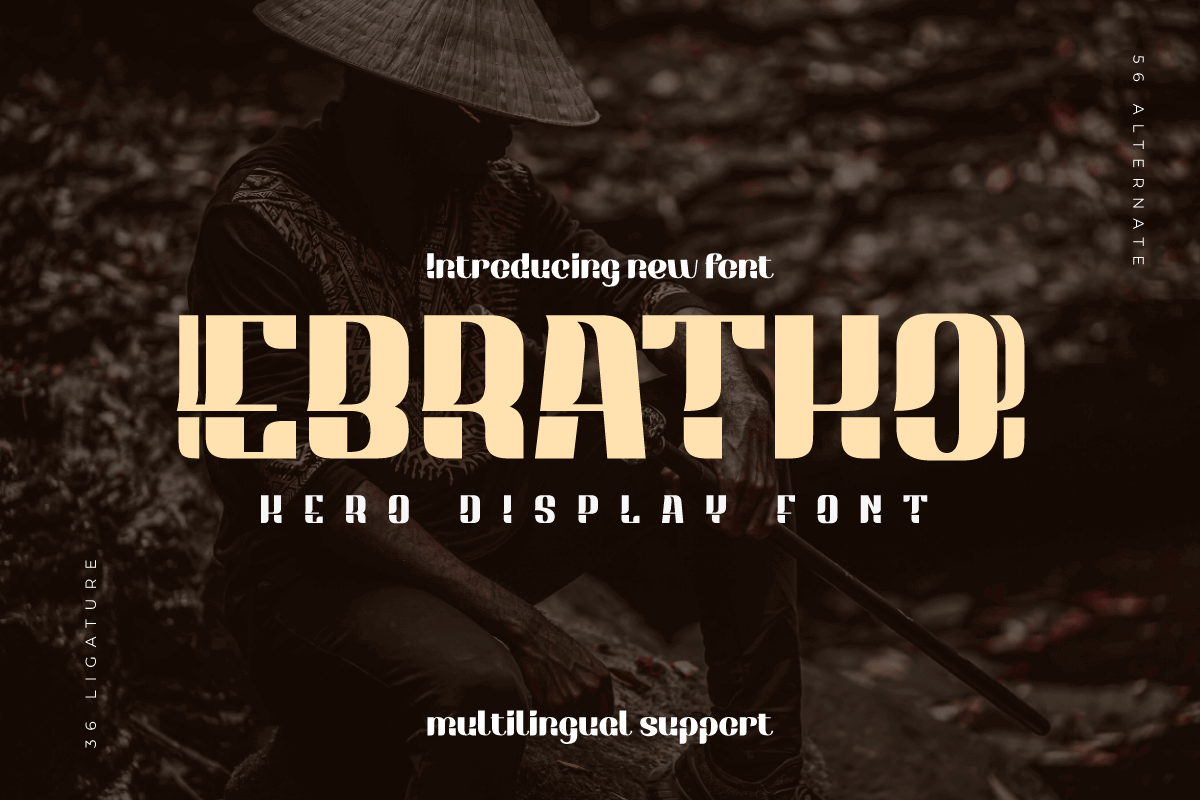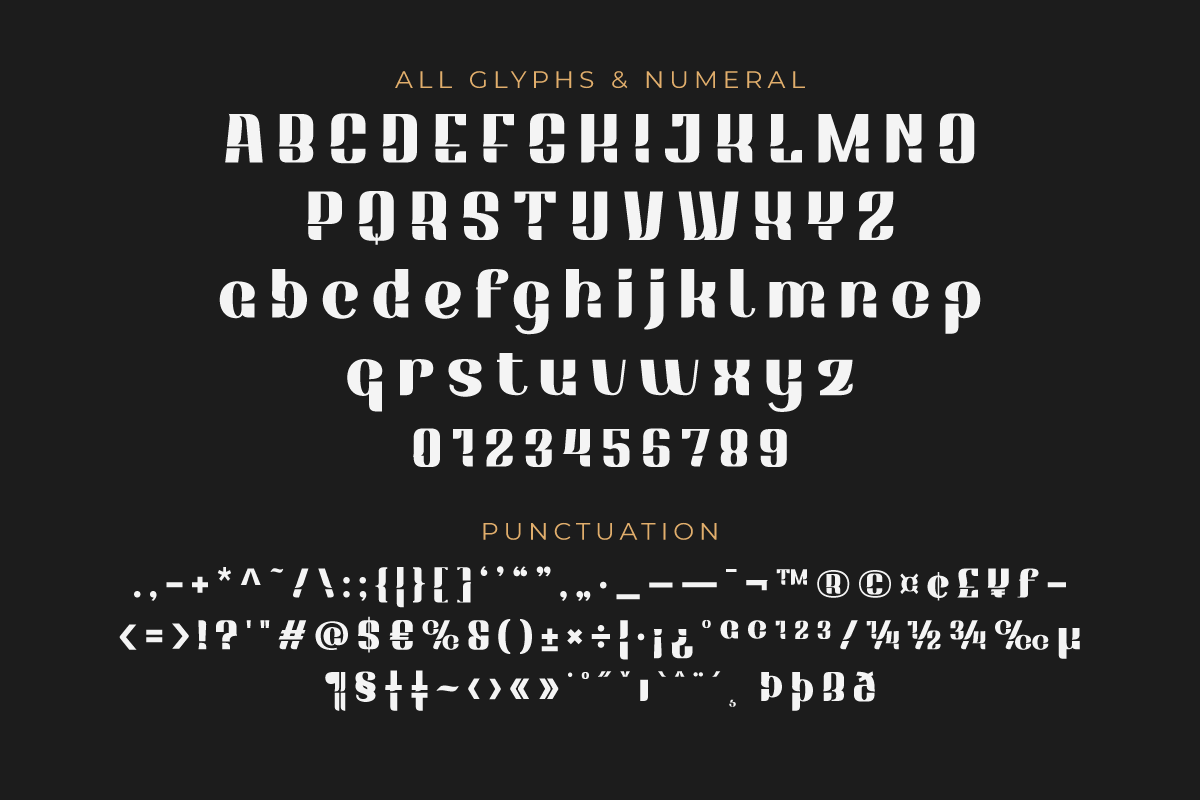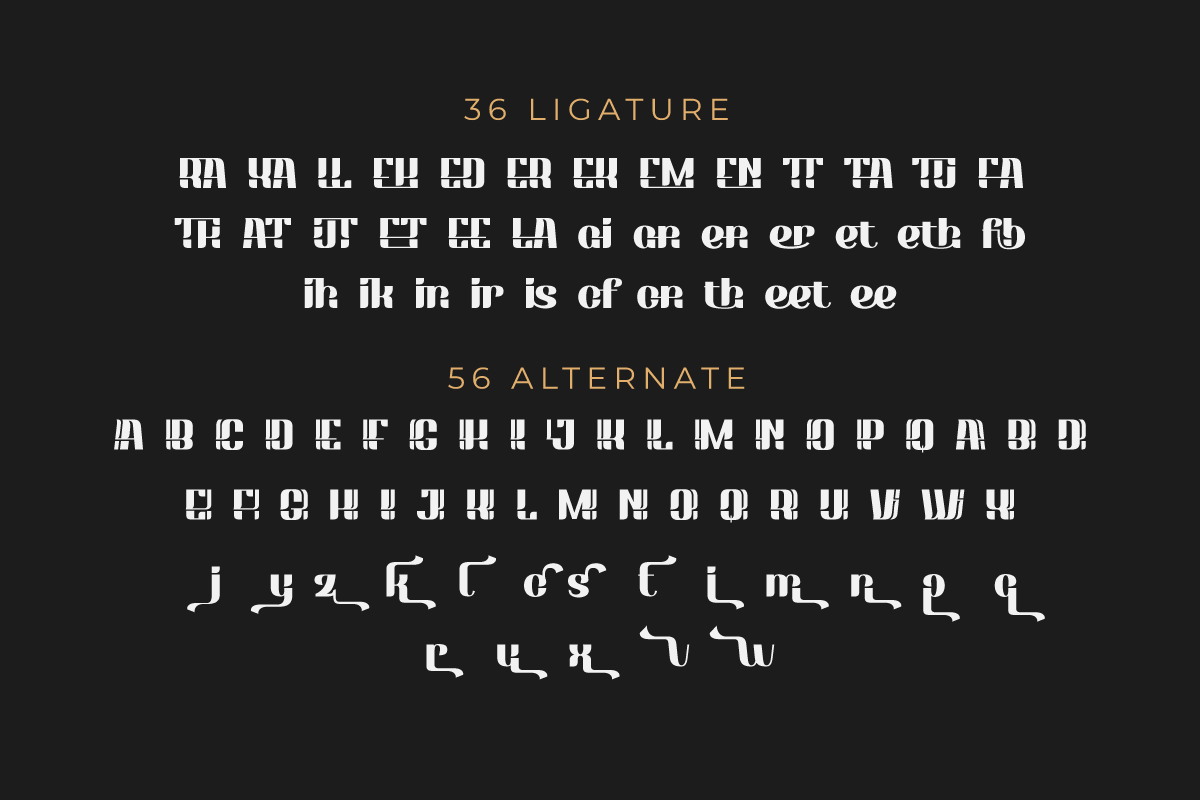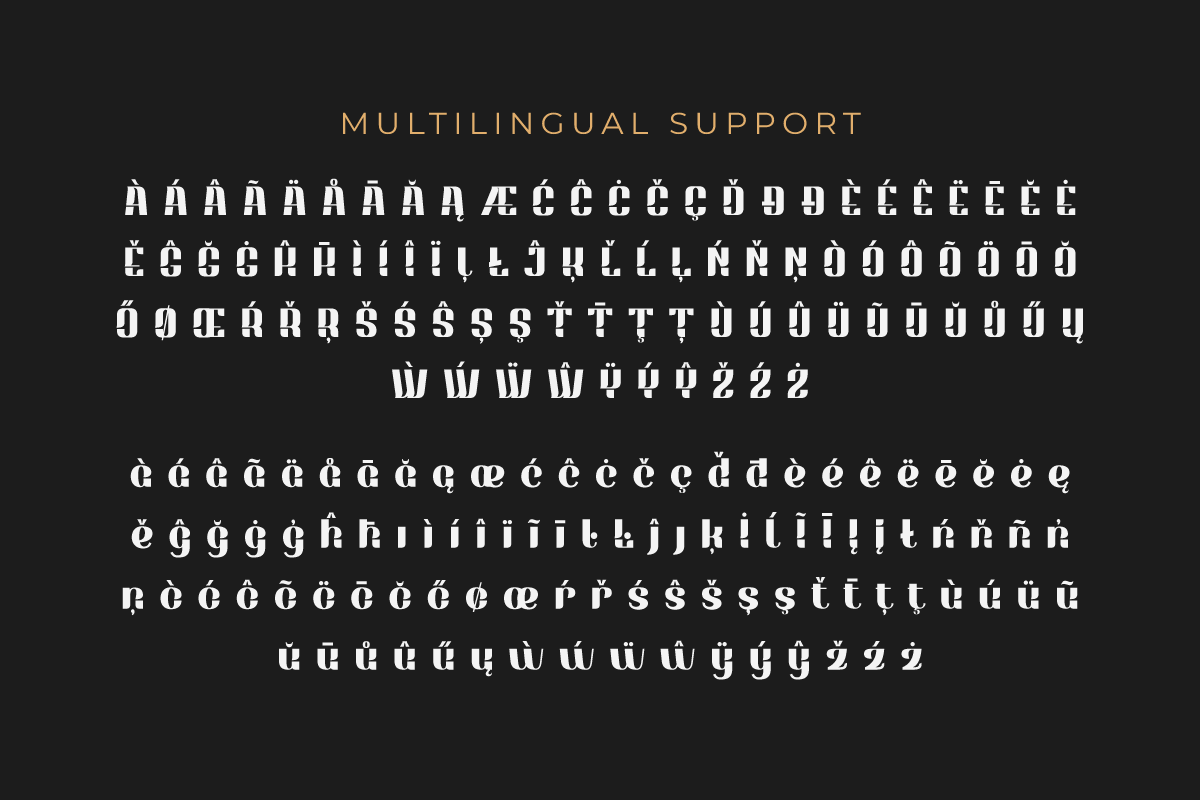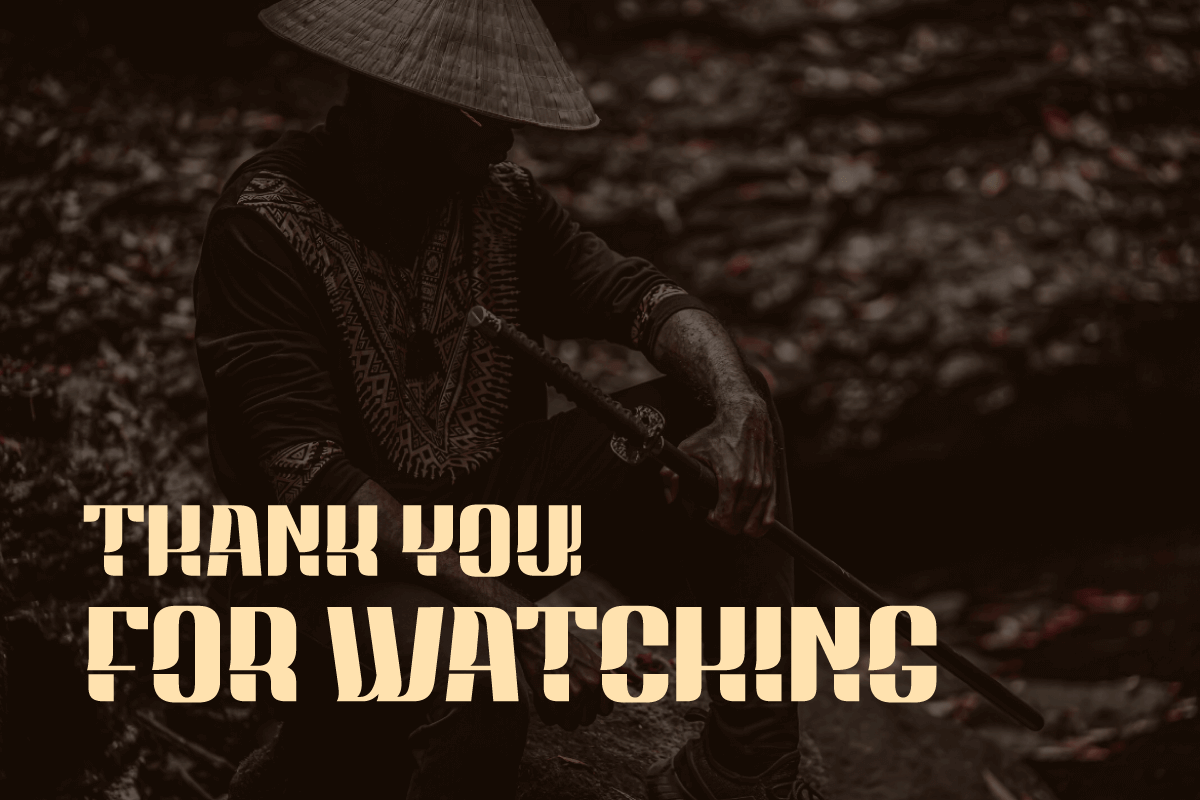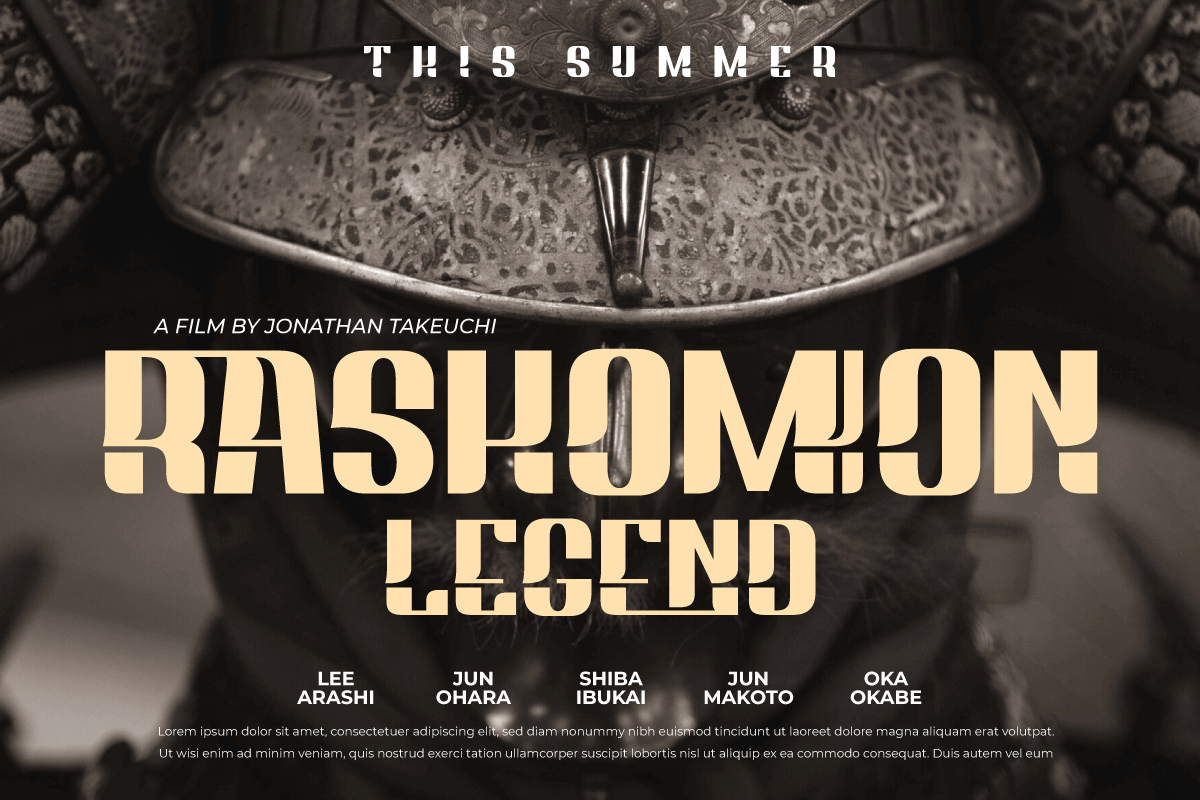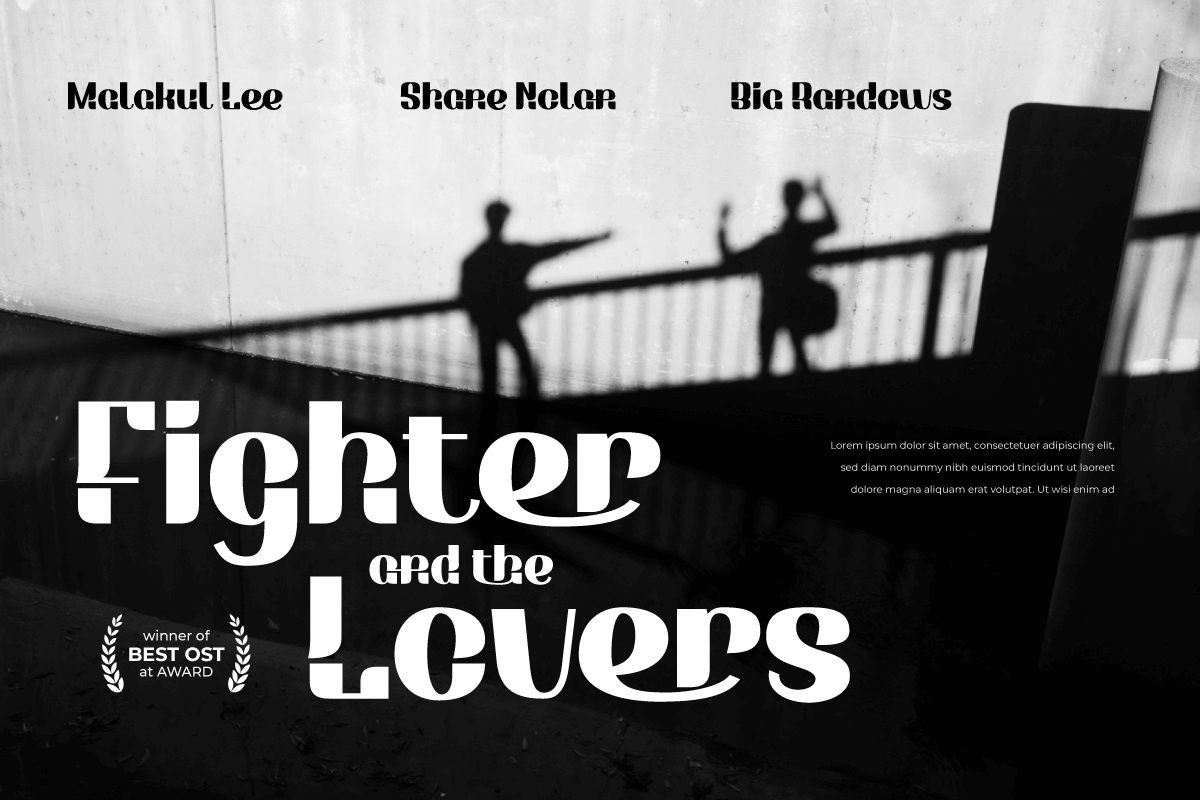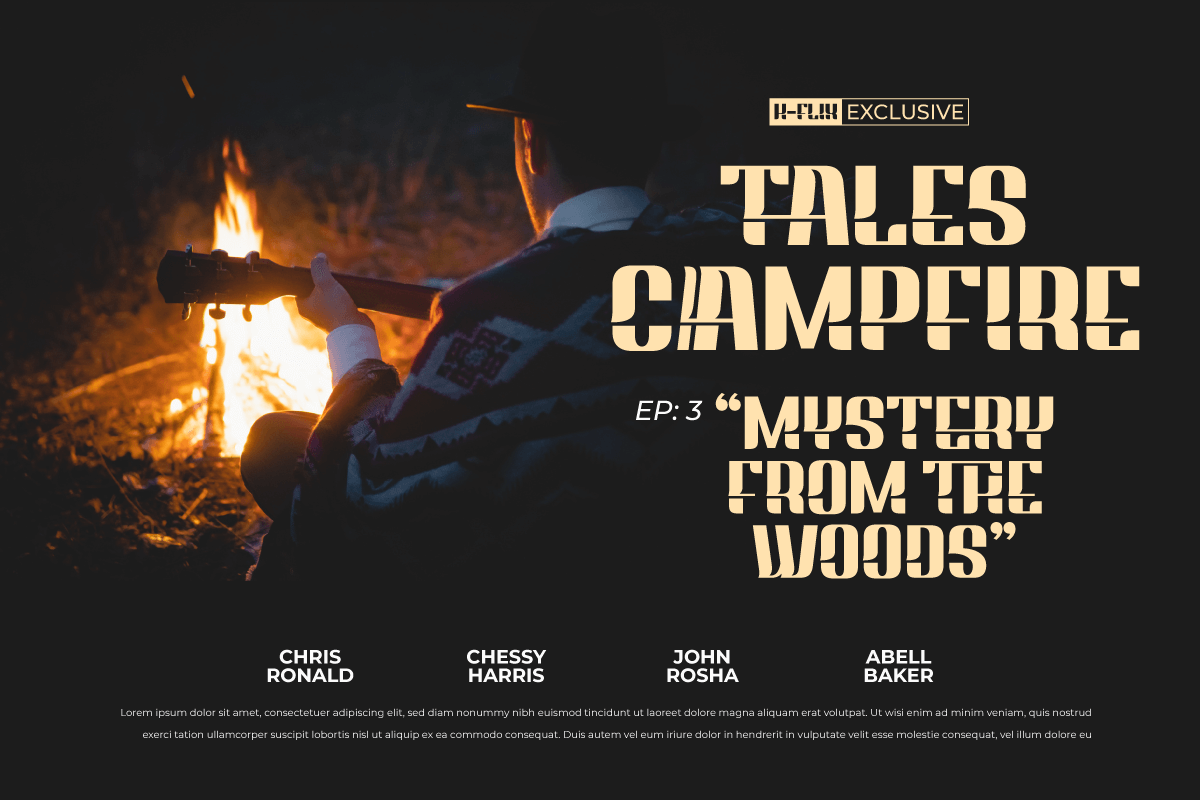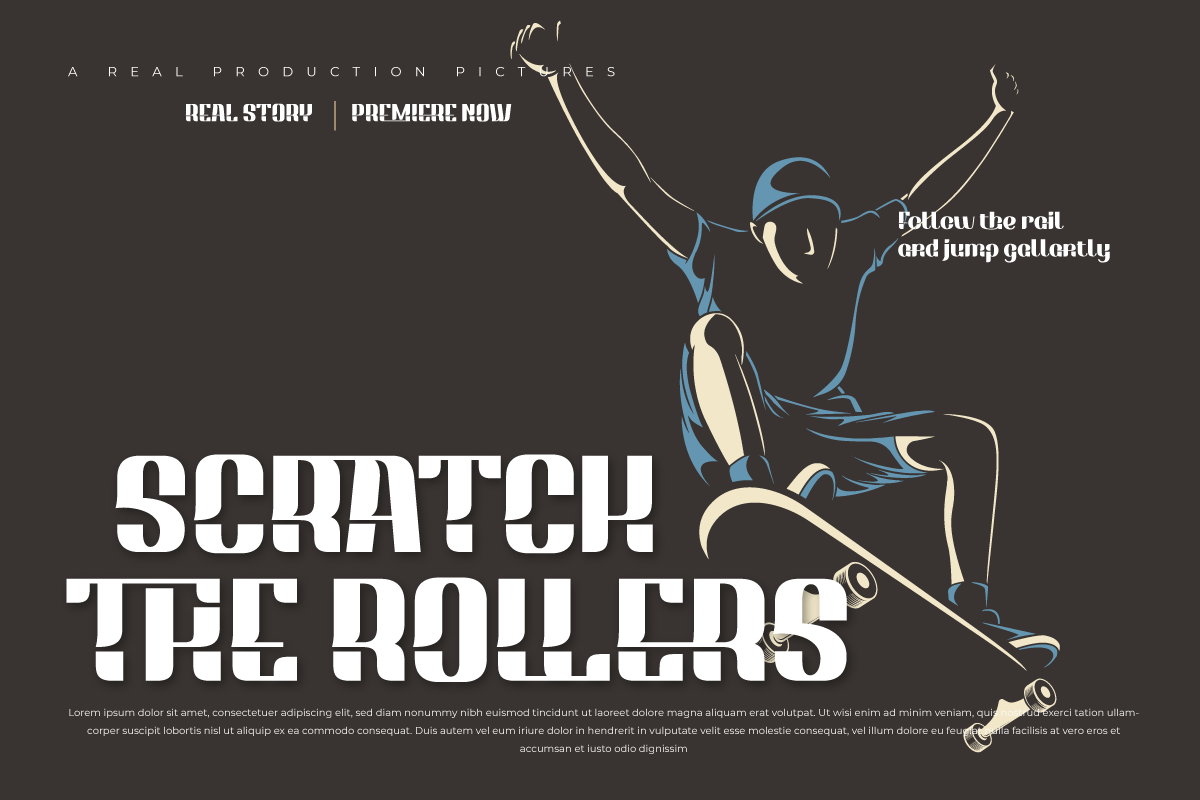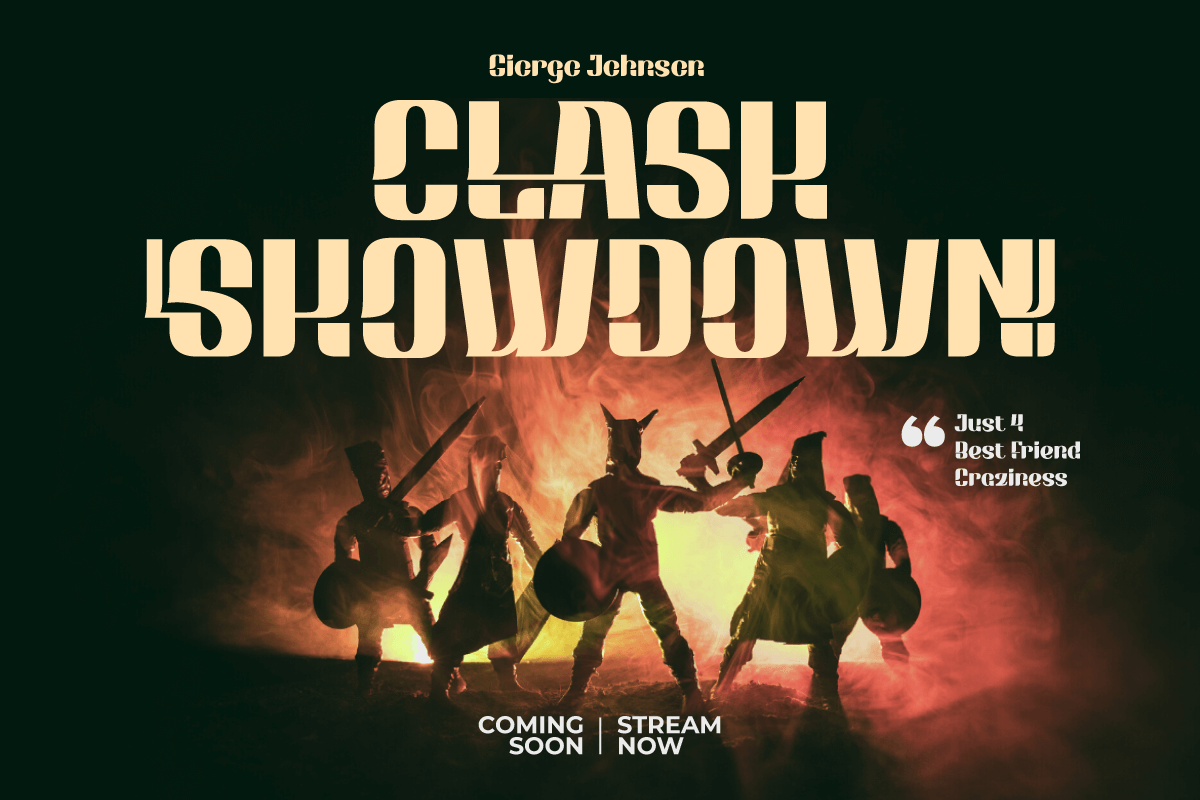
EBRATHO | Display Hero Font
Ebratho is a superhero-themed display font that brings strength, courage, and modernity to your projects. With a strong, bold, and full-of-character style, this font is the perfect solution for creating an impressive and aggressive look. In every letter, Ebratho radiates soul-stirring power. Each character is designed with meticulous detail and a unique style, creating a strong and compelling impression on your audience. With a modern and charismatic look, this font will give your project an unforgettable touch.
Ebratho is packed with creative tools, including ligatures and alternates, that allow you to combine elements of this font in various ways to create interesting and unique stylistic variations. Additionally, multilingual support allows you to use Ebratho in multiple languages, making your project accessible to a global audience.
If you’re looking for a strong, bold, modern, and bold font with a superhero touch, Ebratho is the right choice. With benefits that include the ability to create impressive looks and creative features such as ligatures and alternates, this font will quickly catch the attention of your potential customers and make a memorable impression in no time.